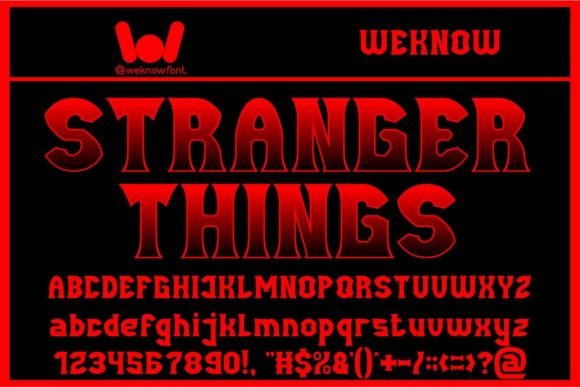
Stranger Things isn’t just a hit Netflix series; it’s become a pop-culture icon that’s instantly recognizable for its eerie music, retro visuals, and—of course—its unforgettable typography. The red, glowing title font from the show’s opening credits has a vintage yet mysterious vibe that fans love to use in posters, social media art, and creative design projects.
If you’ve been wondering how to recreate the Stranger Things font look in your own graphics, you’re in the right place! In this guide, we’ll dive into what the Stranger Things font really is, free alternatives you can download, and practical tips on bringing that supernatural, nostalgic feel to your designs.
What is the Stranger Things Font?
The iconic title of Stranger Things uses a font inspired by ITC Benguiat, designed by Ed Benguiat in the late 1970s. Known for its elegant serifs and slightly dramatic curves, ITC Benguiat captures that vintage horror novel feel, making it the perfect choice for the series’ 1980s-inspired aesthetic.
The actual version used in the show may be customized, but ITC Benguiat is as close as you’ll get to the real thing. It feels classic, mysterious, and instantly sets the tone for supernatural storytelling.
Why Use Stranger Things-Inspired Fonts?
Fonts do more than just display words—they set mood and style. Stranger Things-inspired fonts can give your designs:
✅ Retro Horror Vibe: Bring the look of classic 80s horror book covers and movie posters.
✅ Fan Connection: Perfect for fan art, streaming graphics, or themed party invitations.
✅ Eye-catching Titles: The dramatic serifs and curves grab attention on thumbnails, posters, and banners.
✅ Unique Branding: For creators who love retro aesthetics, this font style adds a distinctive, nostalgic edge.
Whether you’re designing a YouTube thumbnail about the Upside Down, creating Halloween decorations, or adding flair to your social media posts, this typeface brings instant personality.
Stranger Things Font Download – Free Alternatives
Benguiat Bold (free lookalike): Some font sites share free versions or slightly modified takes on ITC Benguiat.
Cloister Black: A gothic-style serif font that echoes the vintage drama.
Goudy Bookletter 1911: Offers a similar serif elegance, albeit less dramatic.
Linotext: A free font with classic gothic curves that capture an old-world horror feel.
Top Uses of Stranger Things Fonts
Stranger Things fonts aren’t just for show titles! Here’s where they shine:
🎥 YouTube Thumbnails & Titles: Add horror nostalgia to reaction videos or reviews.
📸 Instagram Graphics: Teasers, fan edits, or Halloween-themed posts.
✏️ Invitations & Posters: Especially for Halloween parties or themed events.
🛒 Merch Design: T-shirts, mugs, or stickers with quotes or references.
🎨 Fan Art: Make your fan creations instantly recognizable and stylish.
Adding this font style can turn ordinary designs into something that feels part of the Stranger Things universe.
Final Thoughts – Add 80s Nostalgia to Your Designs
The Stranger Things font is more than text; it’s an invitation into a world of supernatural mystery and retro vibes. With free alternatives and online generators, anyone can bring a touch of Hawkins, Indiana, to posters, thumbnails, or even party invites.